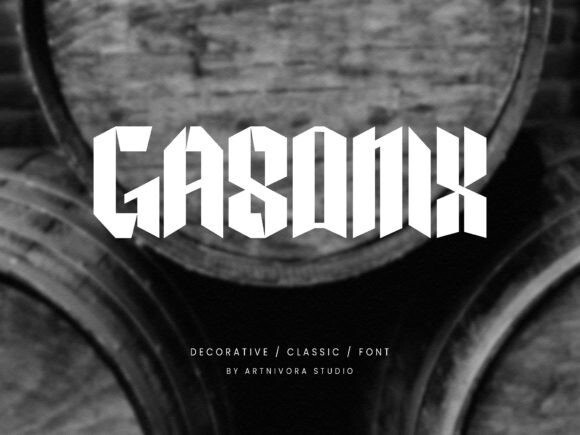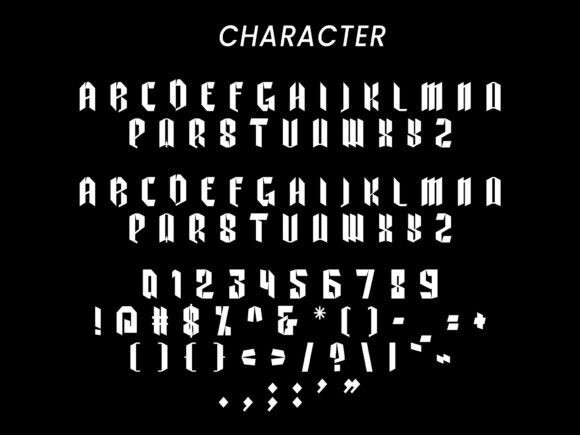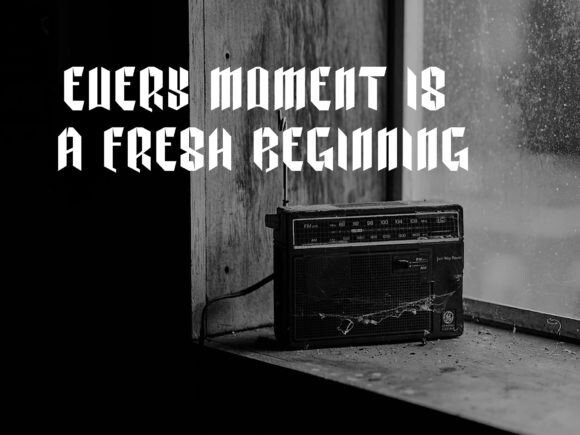
Gasonix Font
Gasonix Font is a cool and incredibly unique display font. Its original look will help you create fantastic designs that will definitely stand out from the crowd.